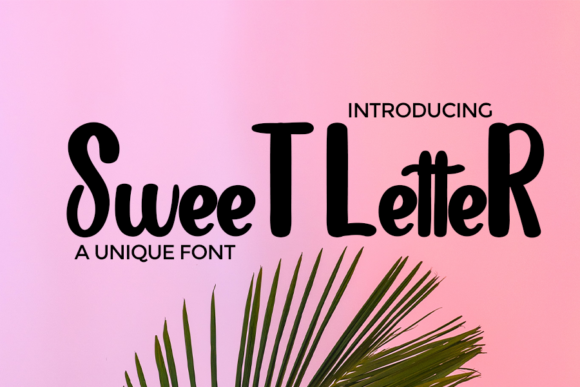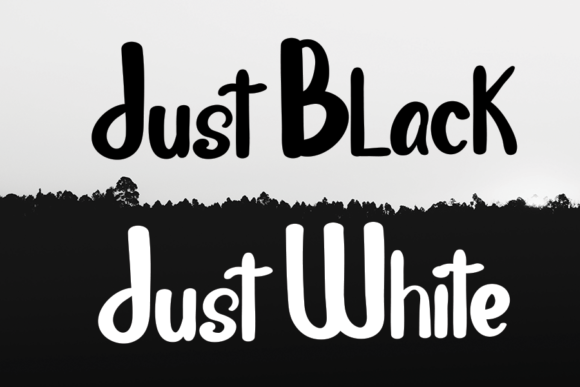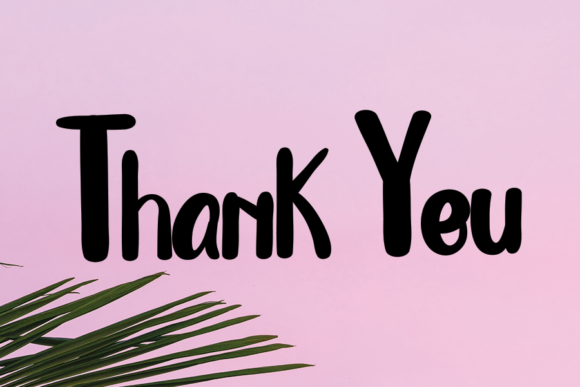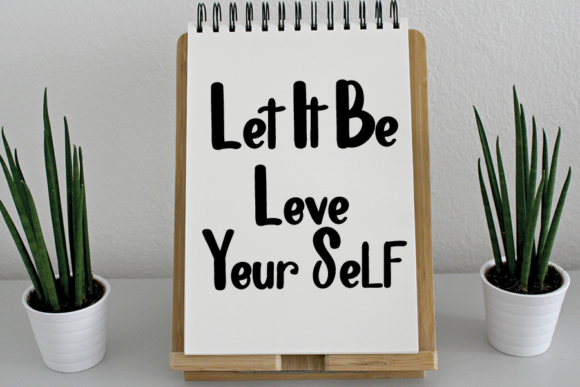
About Creative Summer Font
Creative Summer is a cool, brushed handwritten font. Whether you’re using it for crafting, digital designing, presentations or greeting cards making, it’s perfect!